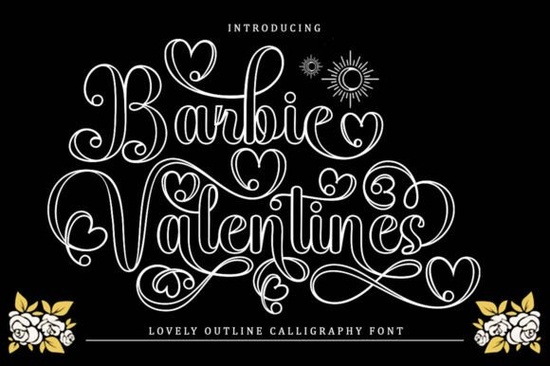
If you're looking for a romantic, feminine font that’s both stylish and easy to read, the Barbie Valentines Outline Font is worth considering especially if you create greeting cards, wedding stationery, or Valentine’s Day-themed designs. This calligraphy-style font blends soft elegance with subtle glamour, making it ideal for projects that call for warmth and charm without overwhelming your layout.
What sets this font apart is its clean outline structure and gentle letterforms. Unlike overly ornate script fonts that can become hard to decipher at smaller sizes, Barbie Valentines maintains clarity thanks to its thoughtful spacing and simple connections between letters. You’ll also find alternate character options for select letters, giving you room to add personality to your typography without sacrificing legibility.
Who is this font best suited for?
This font shines in use cases where romance, nostalgia, or soft femininity are central themes:
- Print-on-demand sellers creating mugs, tote bags, or phone cases with love-themed quotes.
- Small business owners designing custom invitations, gift tags, or packaging for seasonal products.
- Crafters and hobbyists working on scrapbooking, card-making, or DIY home decor.
- Graphic designers who need an elegant yet readable script for branding or social media graphics.
Because it’s an outline font, it pairs beautifully with solid-color fills, watercolor textures, or even layered effects in design software like Photoshop or Canva. Just remember: outline fonts often require careful handling in cutting machines (like Cricut or Silhouette), so always test your file before final production.
How does it compare to other romantic script fonts?
If you’ve used other delicate scripts like Sundae Script Duo, you’ll notice Barbie Valentines leans slightly more structured while still feeling playful. For something moodier and more dramatic, Hello Wicked offers gothic flair but that’s better suited for Halloween than heart-shaped cookies. Meanwhile, Simple Preppy delivers crisp, modern lines if you prefer minimalism over vintage charm.
For bolder brush styles, check out Lockride, which has energetic strokes great for casual branding. And if floral accents are your thing, Beautiful Garden includes decorative swashes that evoke springtime romance though it’s busier than the clean silhouette of Barbie Valentines.
Practical tips for using this font effectively
To get the most out of Barbie Valentines Outline, keep these pointers in mind:
- Avoid tiny sizes. While it’s readable, intricate outlines lose detail below 18–20 pt in print.
- Pair it wisely. Combine with a clean sans-serif (like Montserrat or Lato) for contrast and balance.
- Use alternates intentionally. Not every word needs stylized letters reserve them for emphasis or visual interest.
- Test print or cut first. Outline fonts can behave differently across printers or vinyl cutters.
When should you choose this font over others?
Go with Barbie Valentines Outline if your project calls for:
- A nostalgic, retro-feminine vibe (think 1950s diner meets modern valentine).
- Softness without being overly frilly or cursive-heavy.
- Versatility you want one font that works for both headlines and short phrases.
It’s not the best choice for corporate reports, tech branding, or anything requiring ultra-modern minimalism. But for heartfelt messages, anniversary gifts, or boutique product labels? It adds just the right whisper of charm.